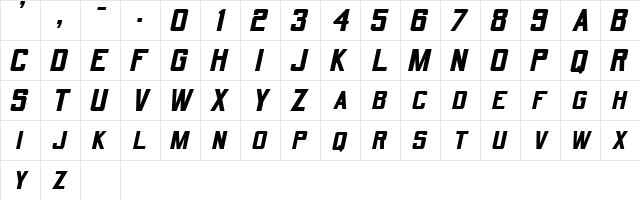
Quarterback Oblique
Design Context for Quarterback Typeface
Quarterback is a composed and adaptable typeface that performs quietly and consistently across a wide range of design contexts. The dynamic lean of this cut emphasises speed and emphasis in any layout.
Pro Tip: Use Quarterback for emphasis, pull quotes, and subheadings where its slanted energy can add rhythm to the layout.